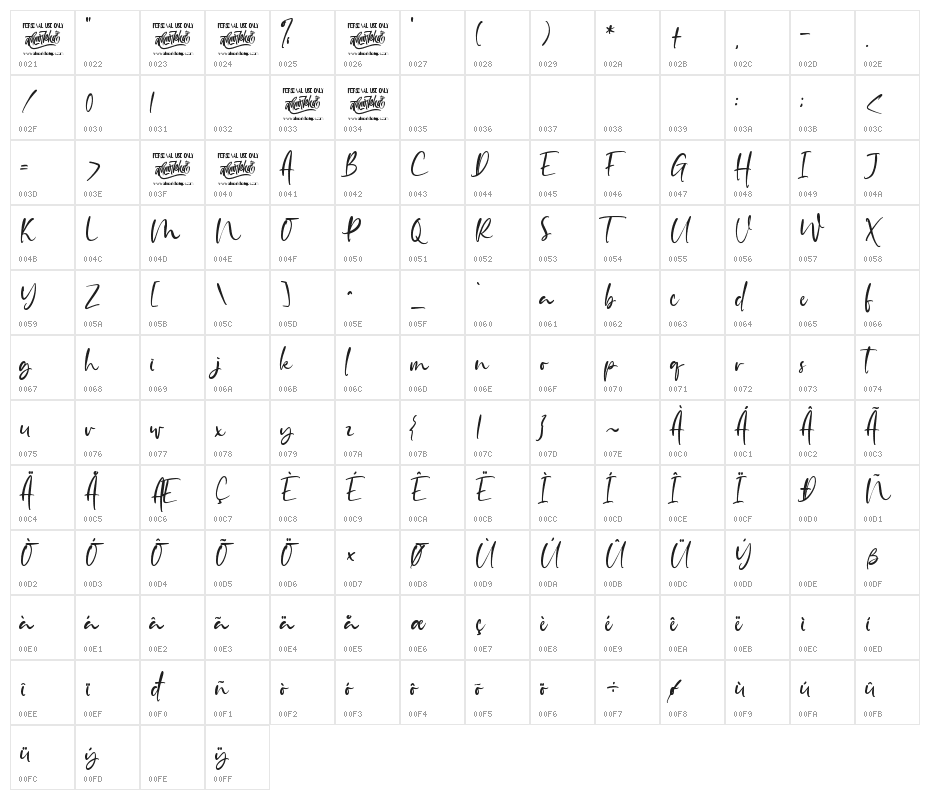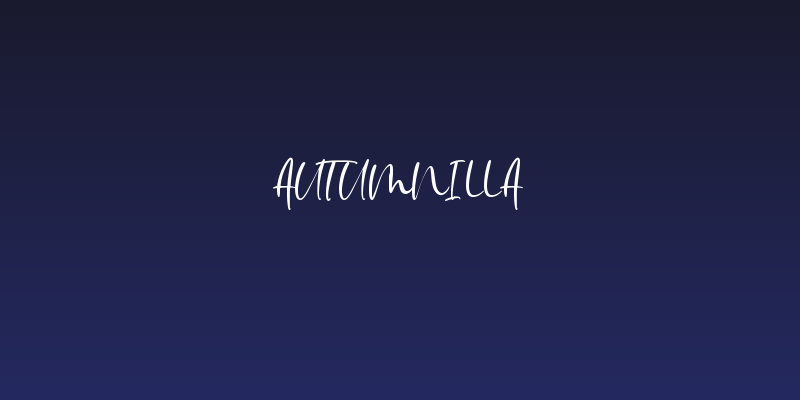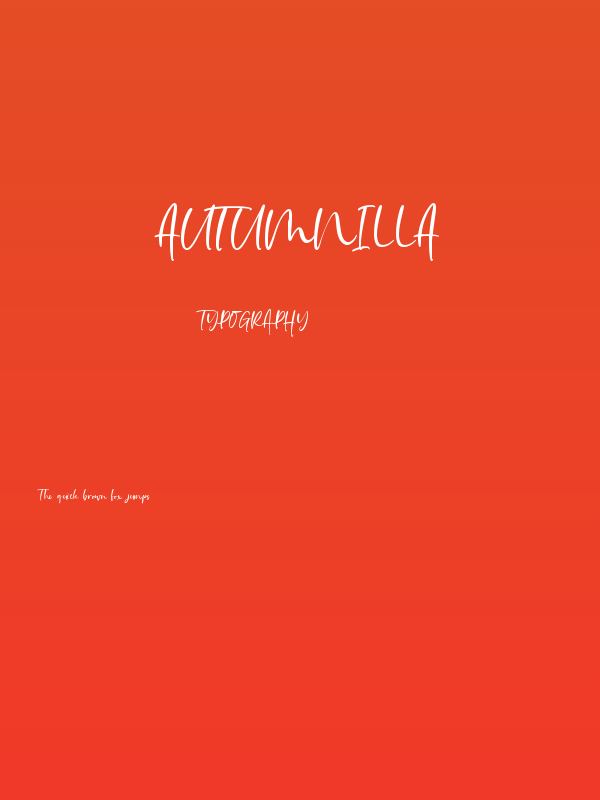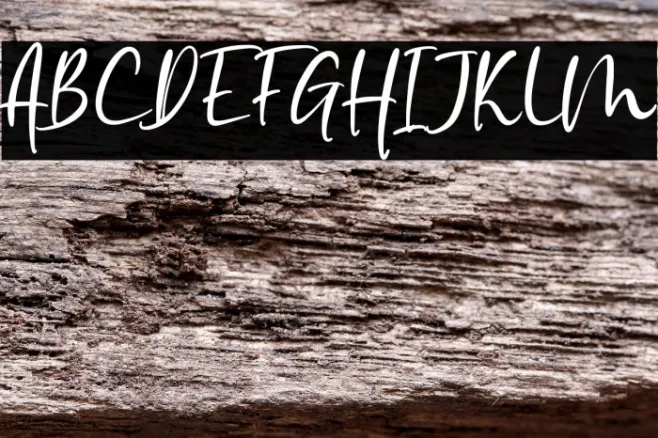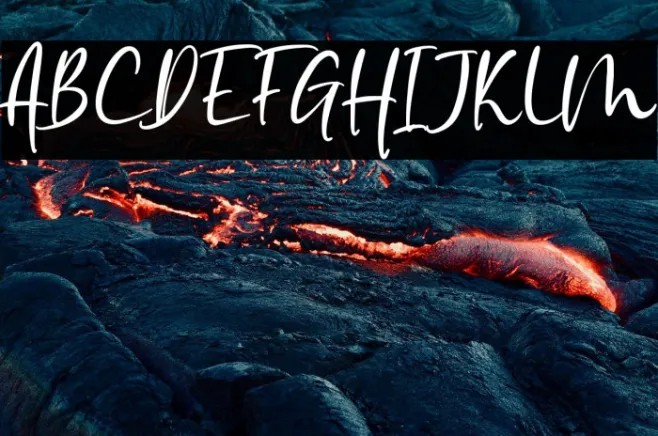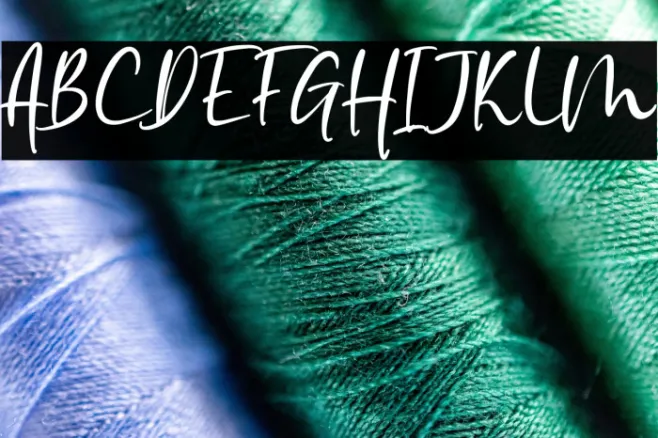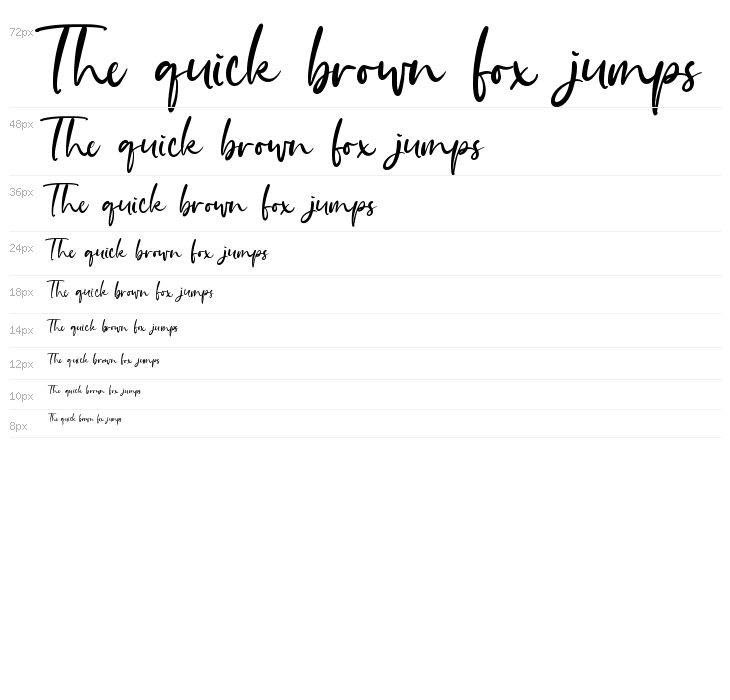
Autumnilla Font
Autumnilla Description
This font exhibits a lively and expressive handwritten style, characterized by its fluid and dynamic strokes. The uppercase letters are bold and slightly slanted, giving a sense of movement and energy. The lowercase letters maintain a consistent flow, with some letters featuring unique loops and curves that add to the font's charm. The numerals are straightforward yet harmonize well with the overall style. Special characters are creatively integrated, maintaining the playful and artistic essence of the font. This font is ideal for projects that require a personal touch, such as invitations, greeting cards, or branding materials.
| Proposed Projects | Ideal for invitations, greeting cards, branding materials, and creative projects requiring a personal touch. |